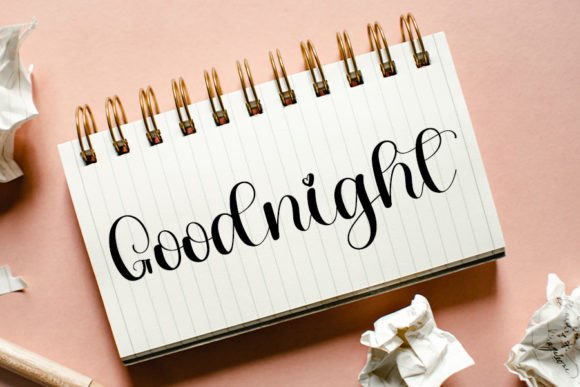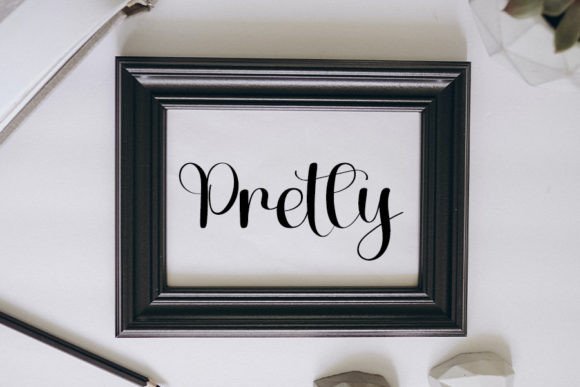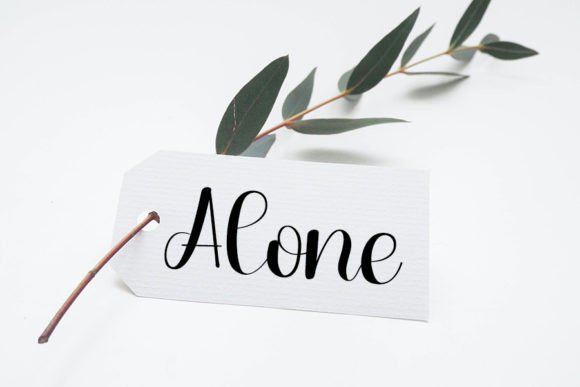
Meet the Perfect Match for Your Design Needs
You know that feeling when you’re in the zone, and the perfect font suddenly pops into your mind? It’s like the whole design comes together in an instant. For designers, this moment is a dream come true. And, trust us, we’ve found just the one: Daddy Font.
This trendy handwritten font exudes a contemporary atmosphere and impeccable form, drawing inspiration from the timeless classic calligraphy. Whether you’re crafting a wedding invitation, a brand identity, or a marketing campaign, Daddy Font is the perfect addition to elevate your design project. Its elegance and class make it a valuable asset for any designer looking to take their work to the next level.
Daddy Font Key Features
- Unique Characteristics: Daddy Font offers a wide range of unique and stylish fonts that are perfect for various design projects, including logos, branding, and typography.
Daddy Font Review
Daddy Font is a unique font that stands out from the crowd, but is it the right fit for your next design project? Let’s dive in and find out.
- Playful and fun aesthetic, perfect for projects that require a lighthearted tone.
- Good for use in logos, titles, and headings where you want to grab attention.
- Includes a wide range of characters, including international support.
- May not be suitable for formal or professional projects due to its playful nature.
- Not as versatile as some other fonts, so be prepared to use it sparingly.
- Some characters may not be as detailed or refined as you’d like.
Overall, Daddy Font is a great choice for projects that need a fun and playful touch. While it may not be the best fit for every project, it’s definitely worth considering for the right client or design challenge.